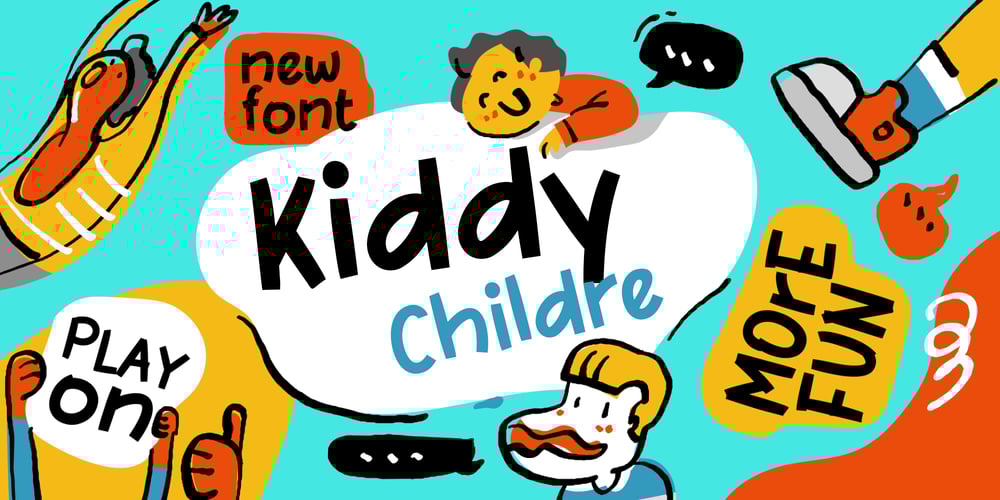
Kiddy Childre Font Family was designed by Wahyu Eka Prasetya, Afiat Sukmaraga and published by Hati. Kiddy Childre contains 1 styles and family package options. This font is a delightfully whimsical font that sparks a sense of adventure in young minds. Its letterforms dance with childlike energy, reminiscent of a world where imagination reigns supreme. This particular font is perfect for igniting a love of reading in children and adding a touch of magic to book covers, educational materials, and playful branding.